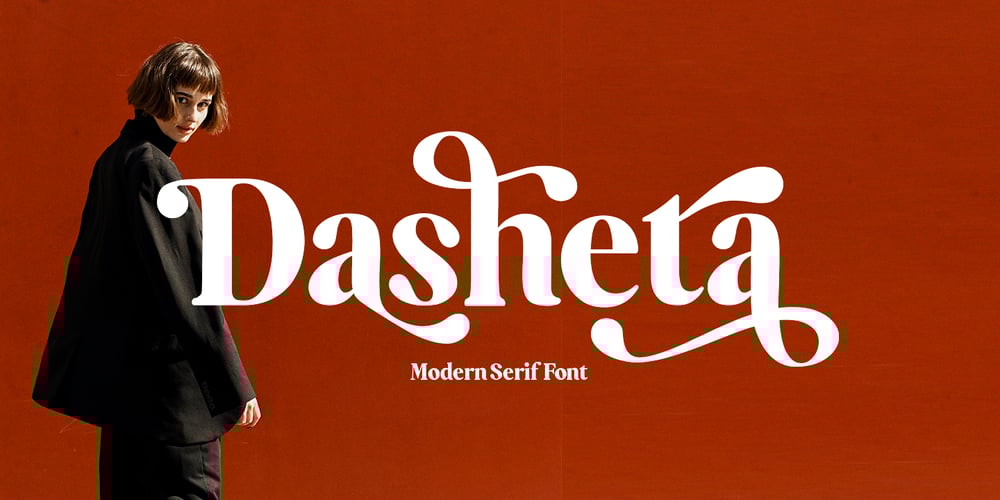
Dasheta Font Family was designed by Muhammad Niko Yudha and published by Brand Type. Dasheta contains 1 styles and family package options. Introducing our new product called Dasheta Modern Serif Font. A beautiful classy, elegant, and modern Modern Serif font. This font is perfect for a wide variety of projects, such as signatures, stationery, logos, weddings, typographic quotes, magazine or book covers, website headers, clothing, branding, packaging design, and more. Also for branding related to fashion or editorial design and displays both masculine and feminine qualities.